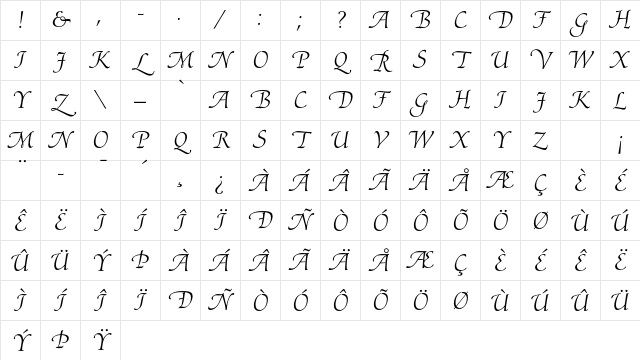
Complete Ariadne LT Std Roman glyph index. Displaying only characters natively supported by Ariadne LT Std Roman font.
Ariadne LT Std is a composed and adaptable typeface that performs quietly and consistently across a wide range of design contexts. Its slender proportions lend an understated elegance to any composition.